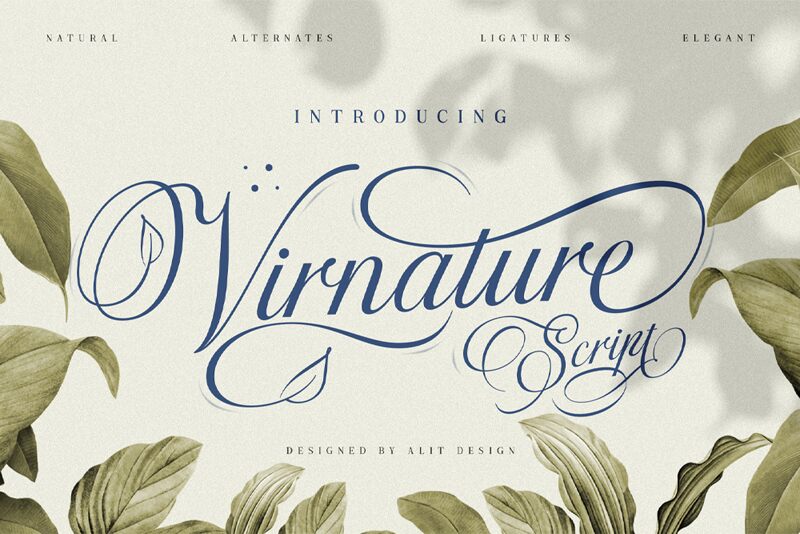
Virnature Regular
Virinature font by Alit Design is an elegant calligraphy ornament that impresses with its flowing and sophisticated handwritten letters. The typography design mimics and romanticizes penmanship with connects that lead into each other seamlessly. Cascading subtle curves are the stand-out feature here, a detail that elevates any standard text to one full of charm.
Choose this free calligraphy font to customize wedding invitations, greeting cards, branding visuals (logos), or product package designs. It can also be used digitally for social media posts, advertisements, blogs, websites as headers if chosen.